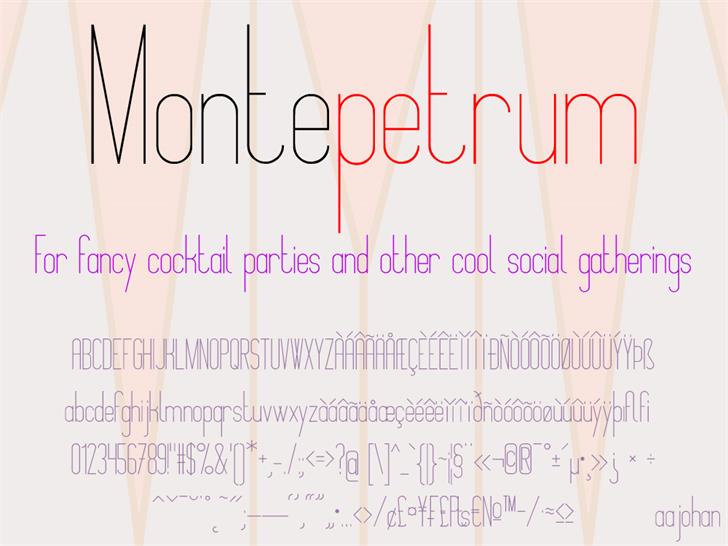
Free Montepetrum Font
Featuring the gorgeous free montepetrum font. This is a downloadable free font file brought to you by Font Space. This is absolutely fancy font so you can easily make world-class designs.